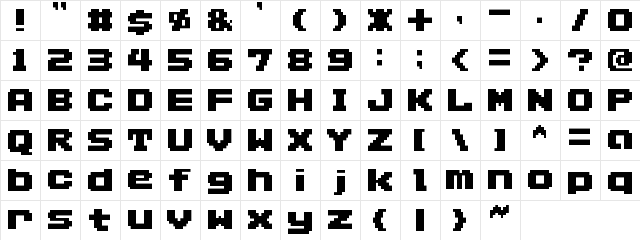
AddLGBitmap09 Regular
Design Context for AddLGBitmap09 Typeface
AddLGBitmap09 celebrates the constraints of early digital type, turning pixel geometry into a distinctive and immediately recognisable style.
A natural choice for retro game titles, chiptune music branding, 8-bit UI, and digital nostalgia projects.
Pro Tip: Pair AddLGBitmap09 with flat colour palettes and simple geometric UI elements to reinforce its digital aesthetic.